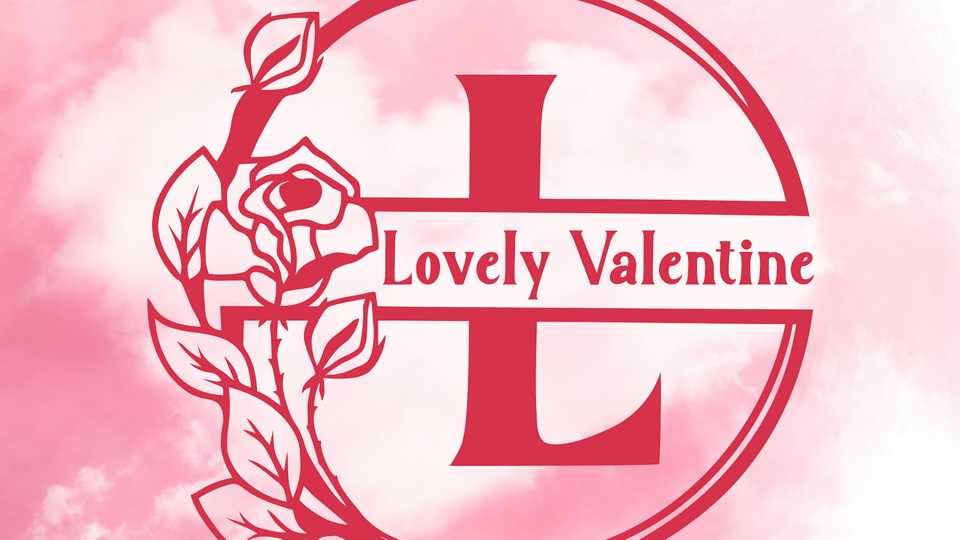
Download Lovely Valentine Monogram font, a beautiful and elegant serif monogram typeface. This font is decorated with monograms combined with beautiful flowers.